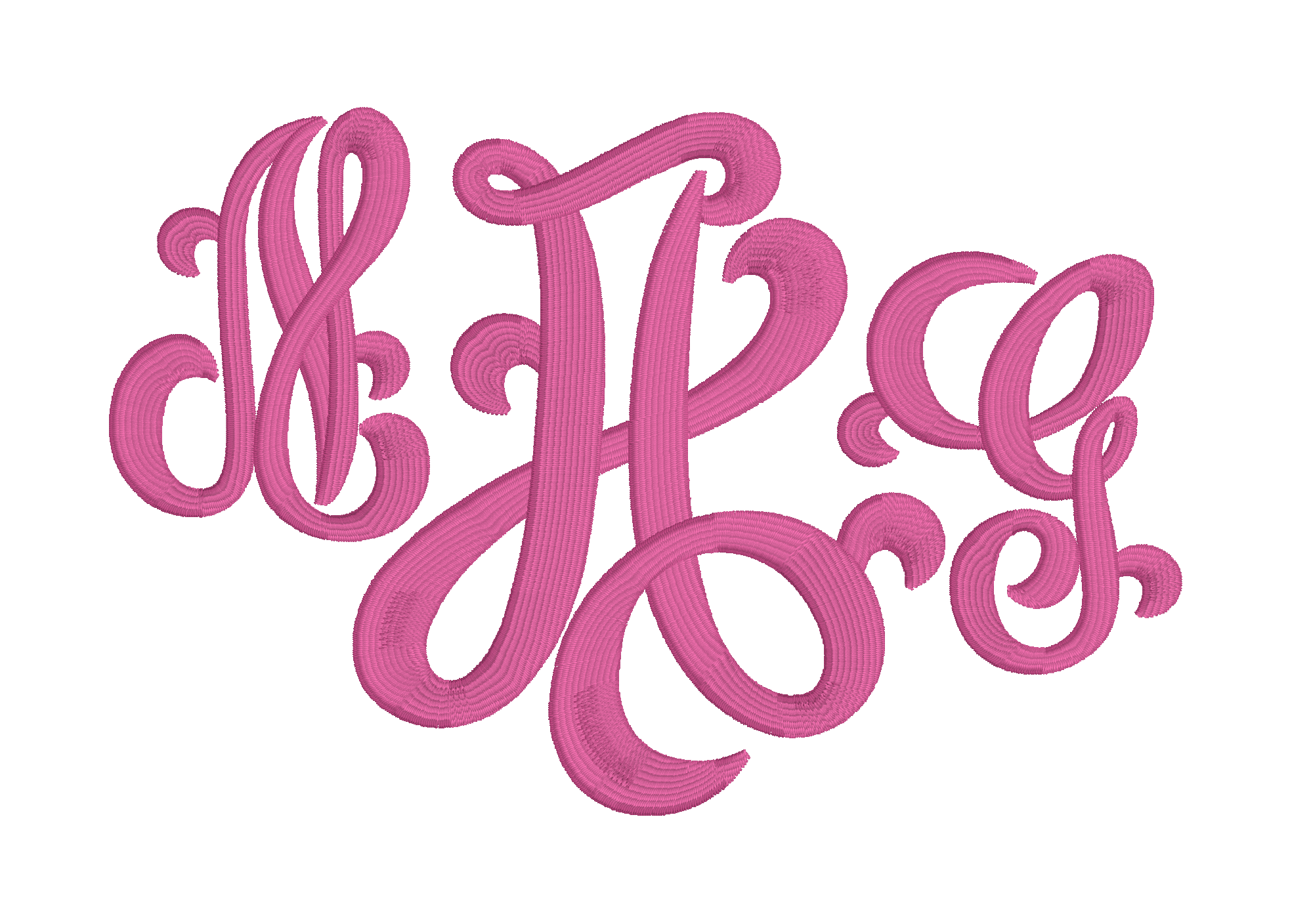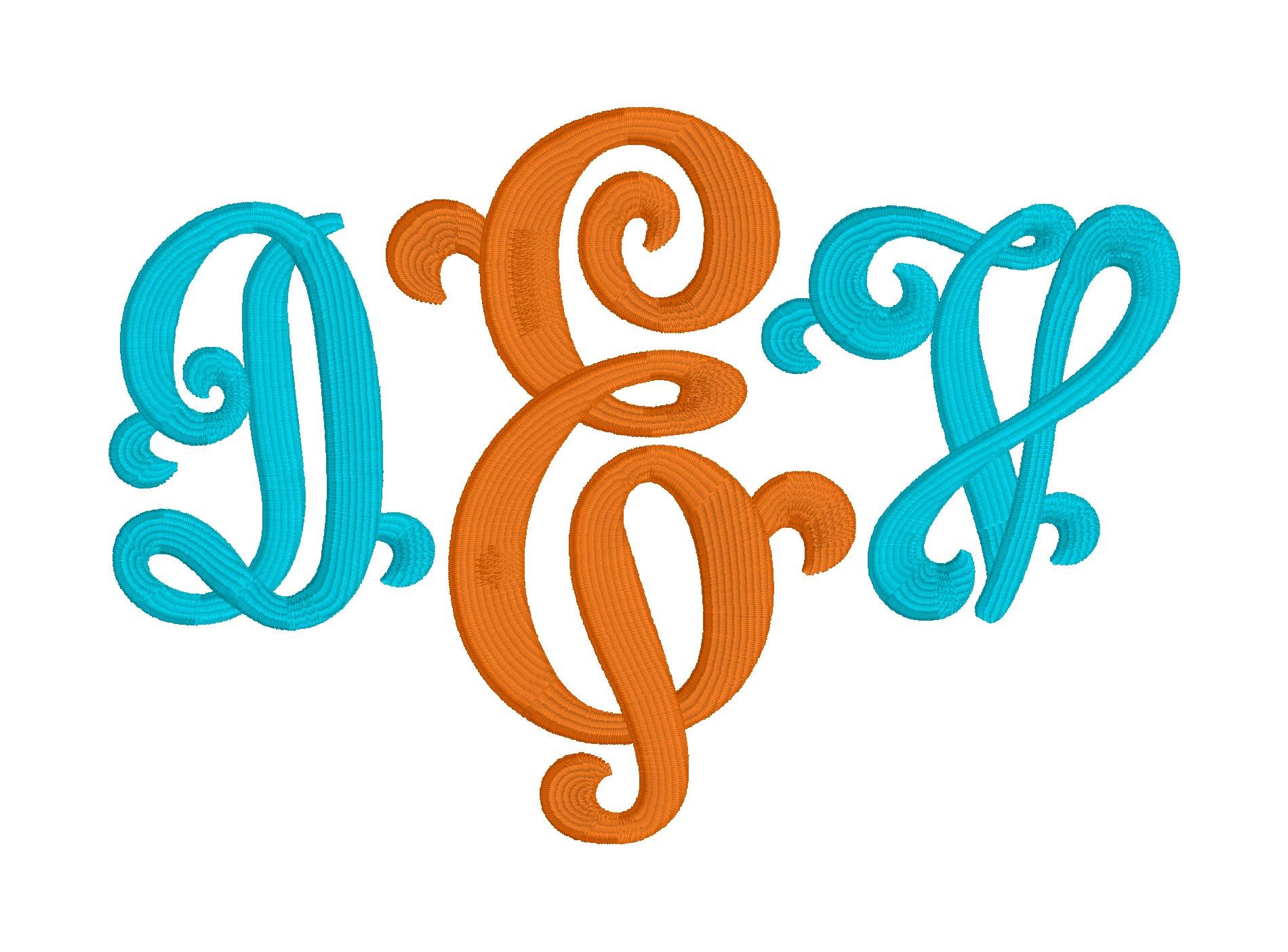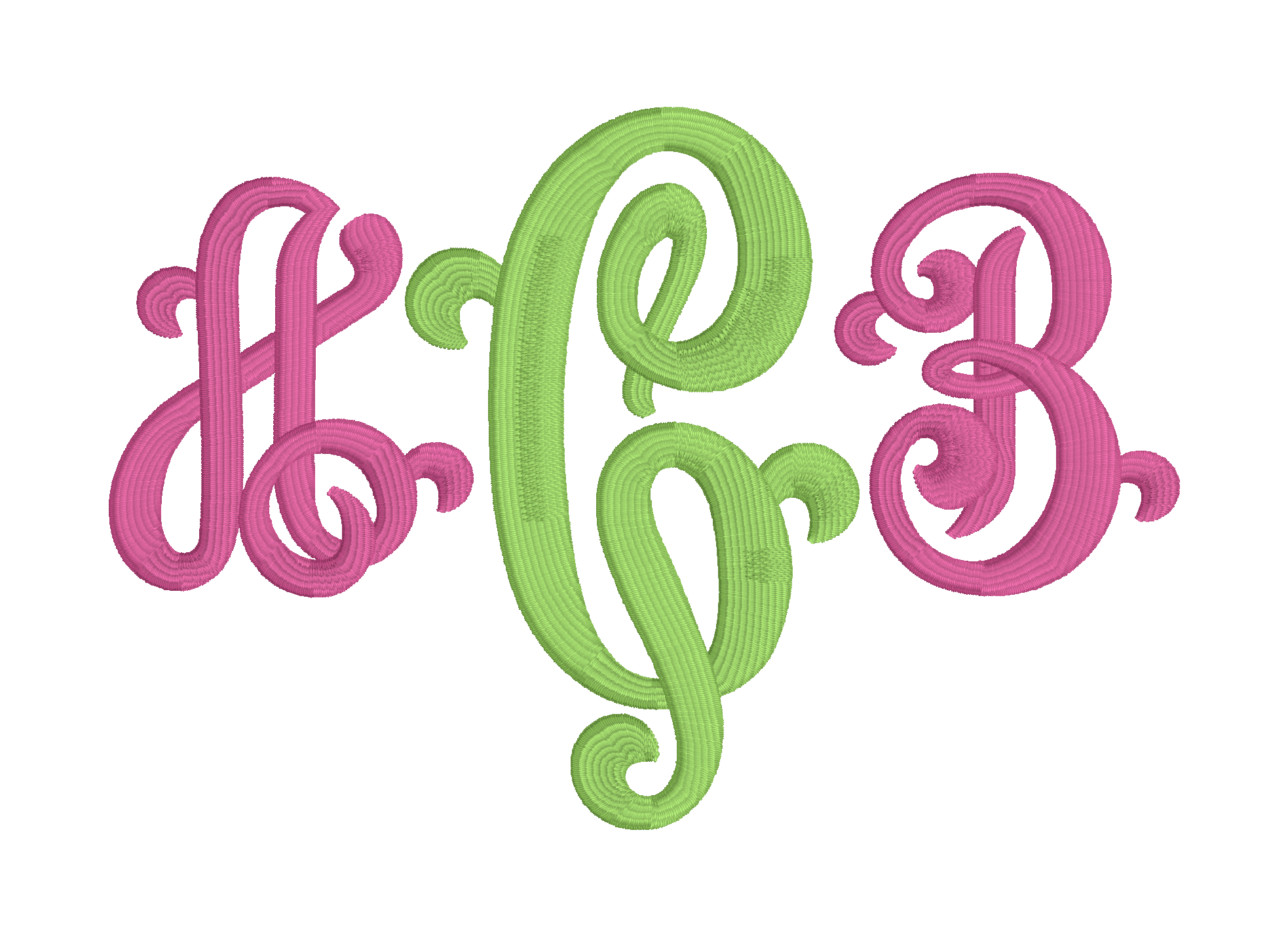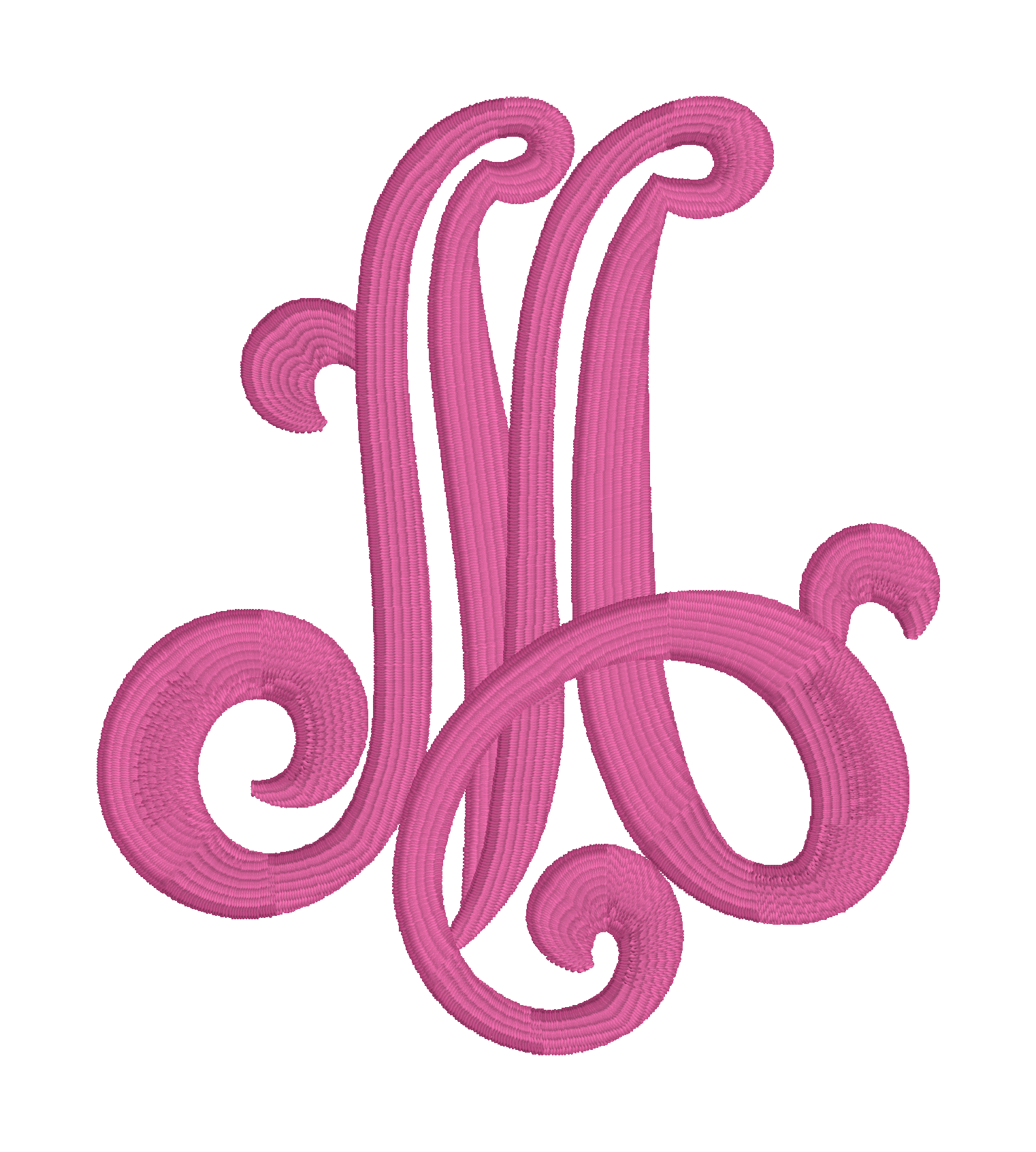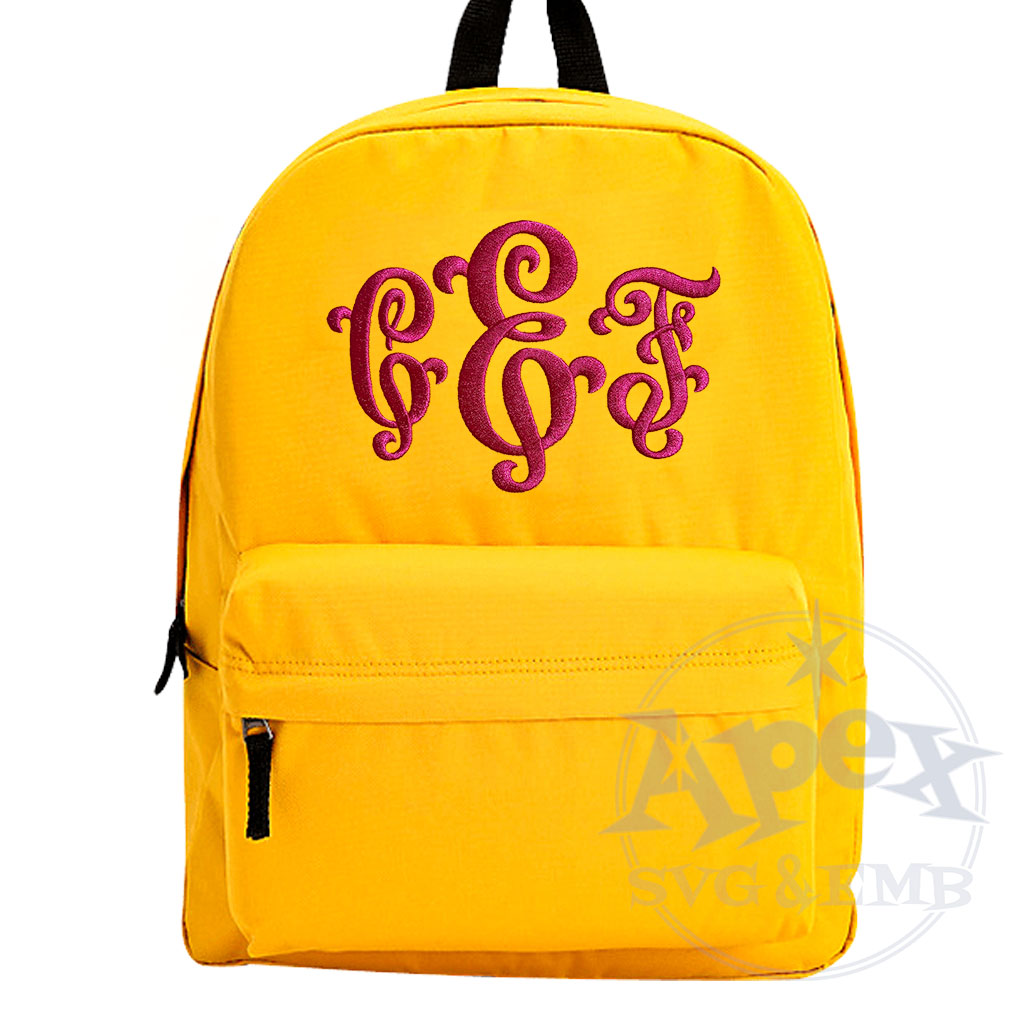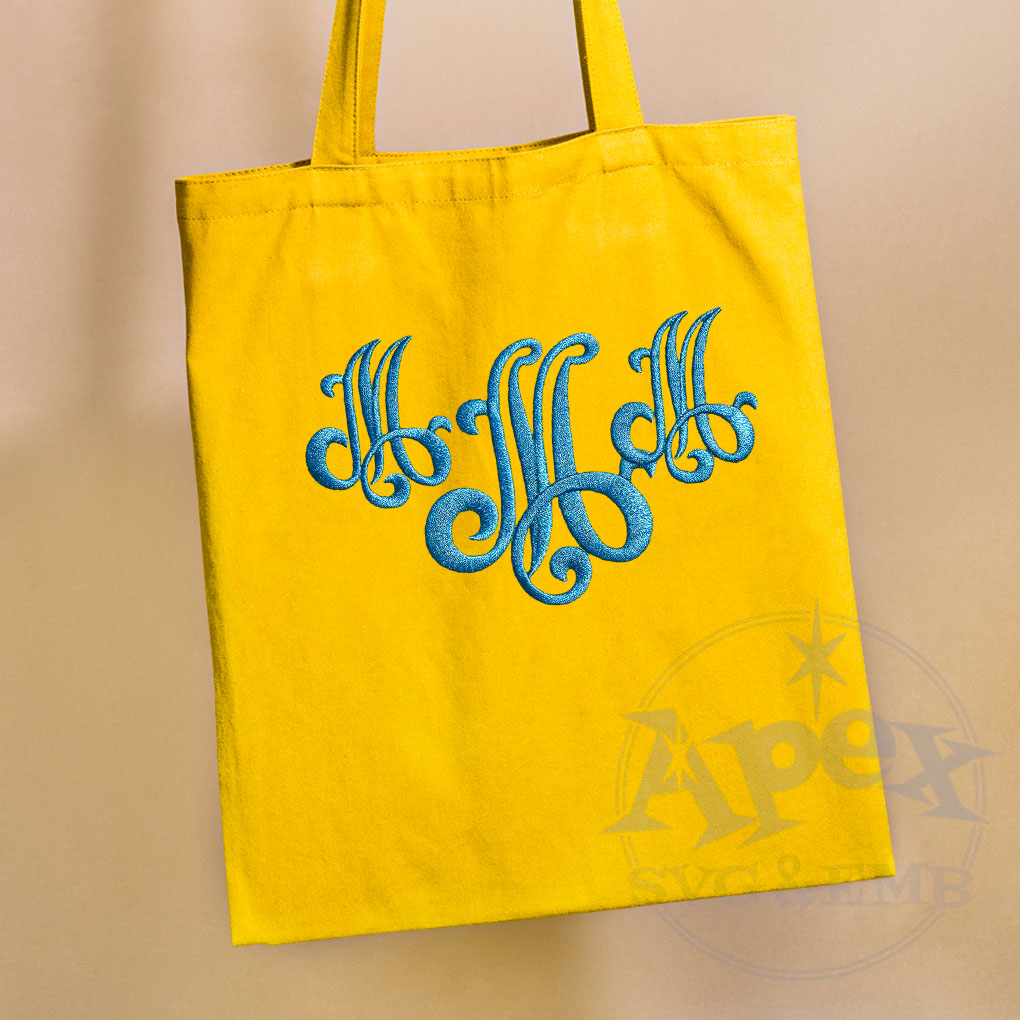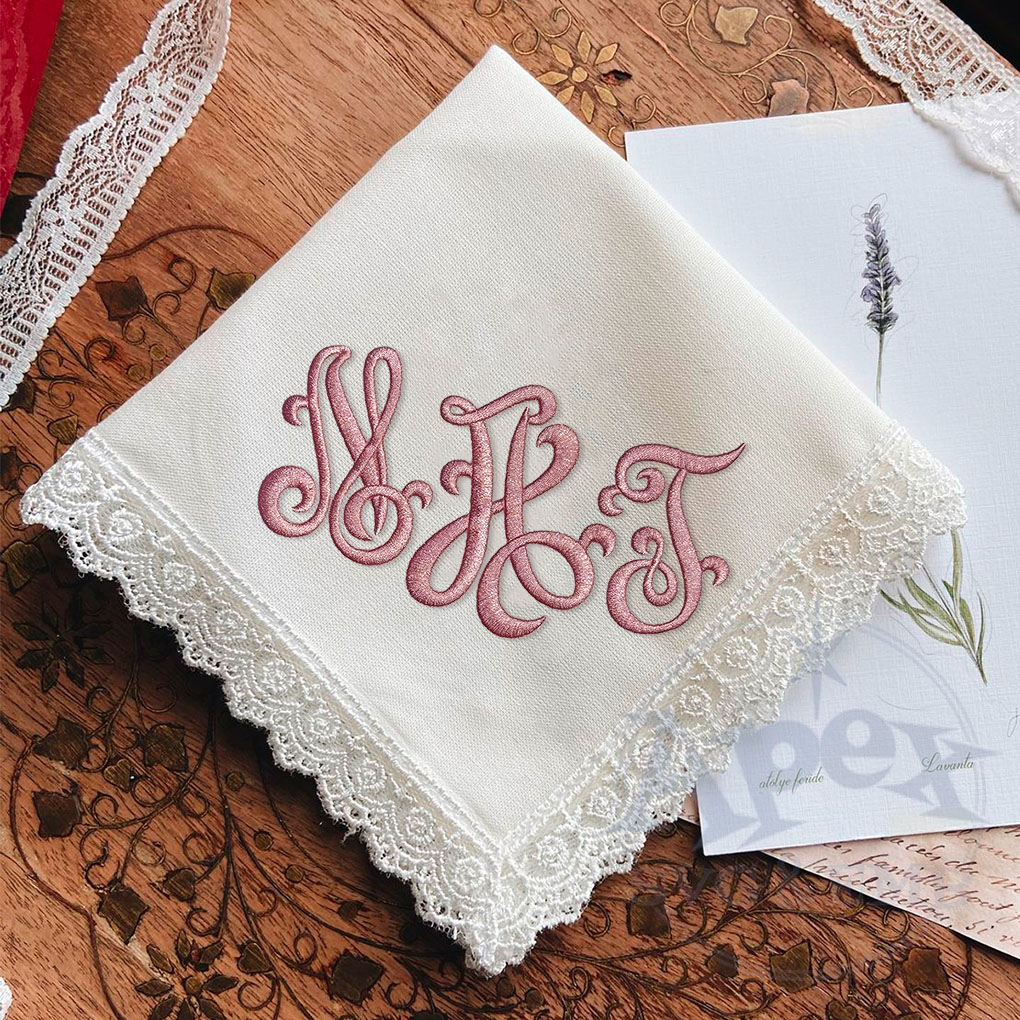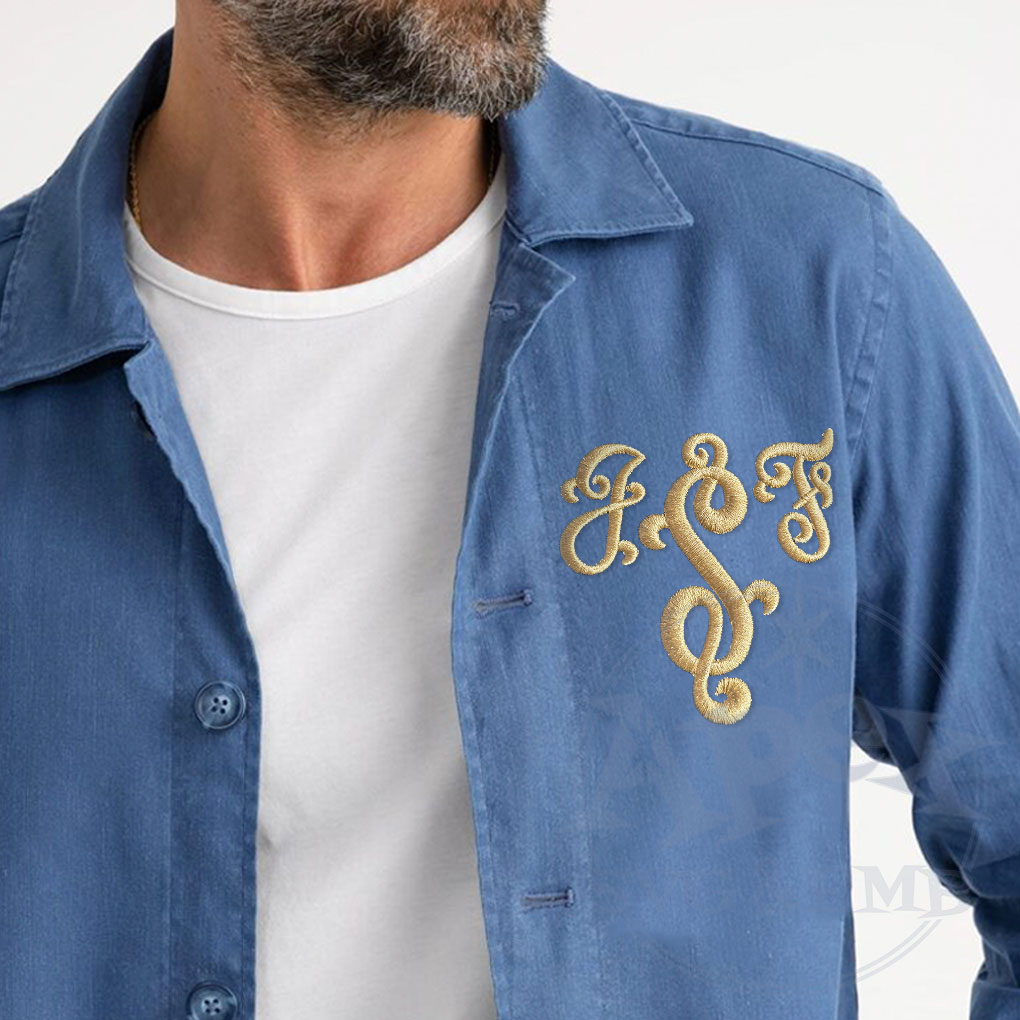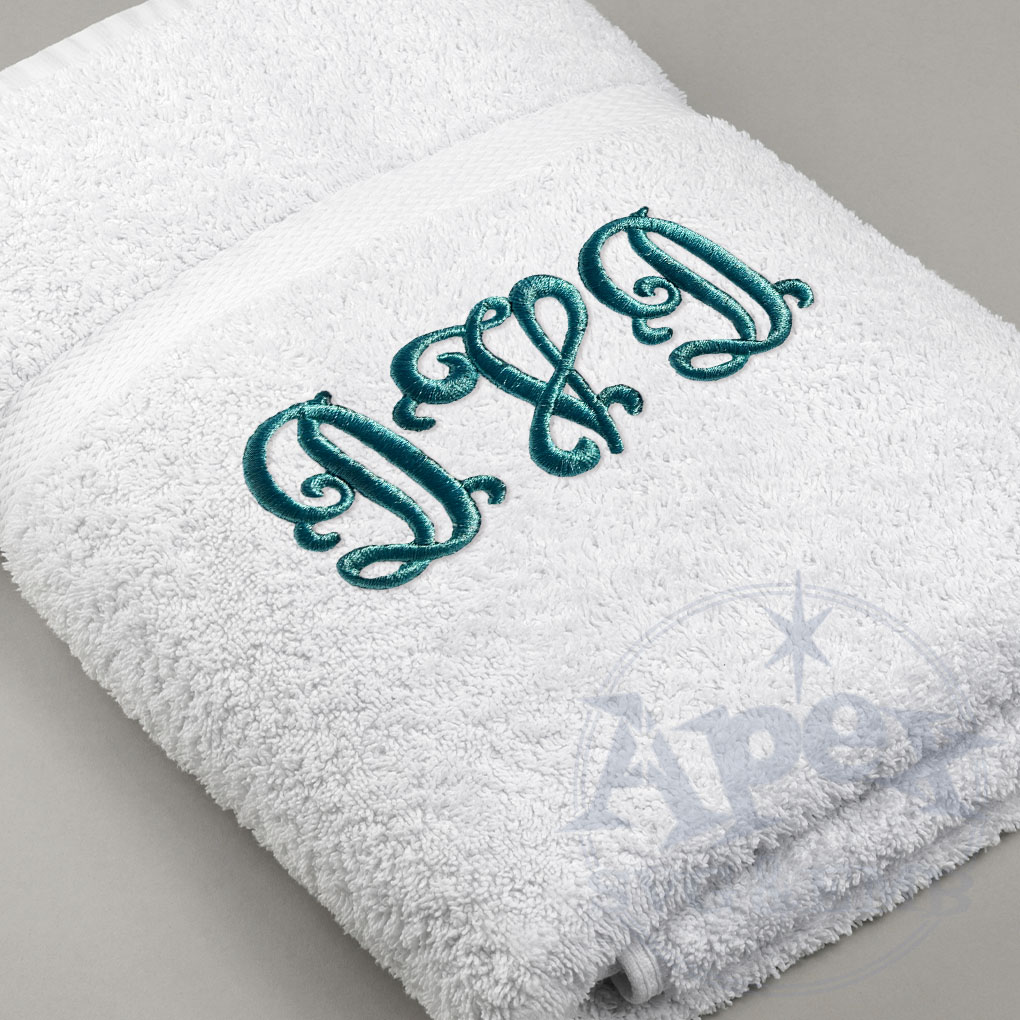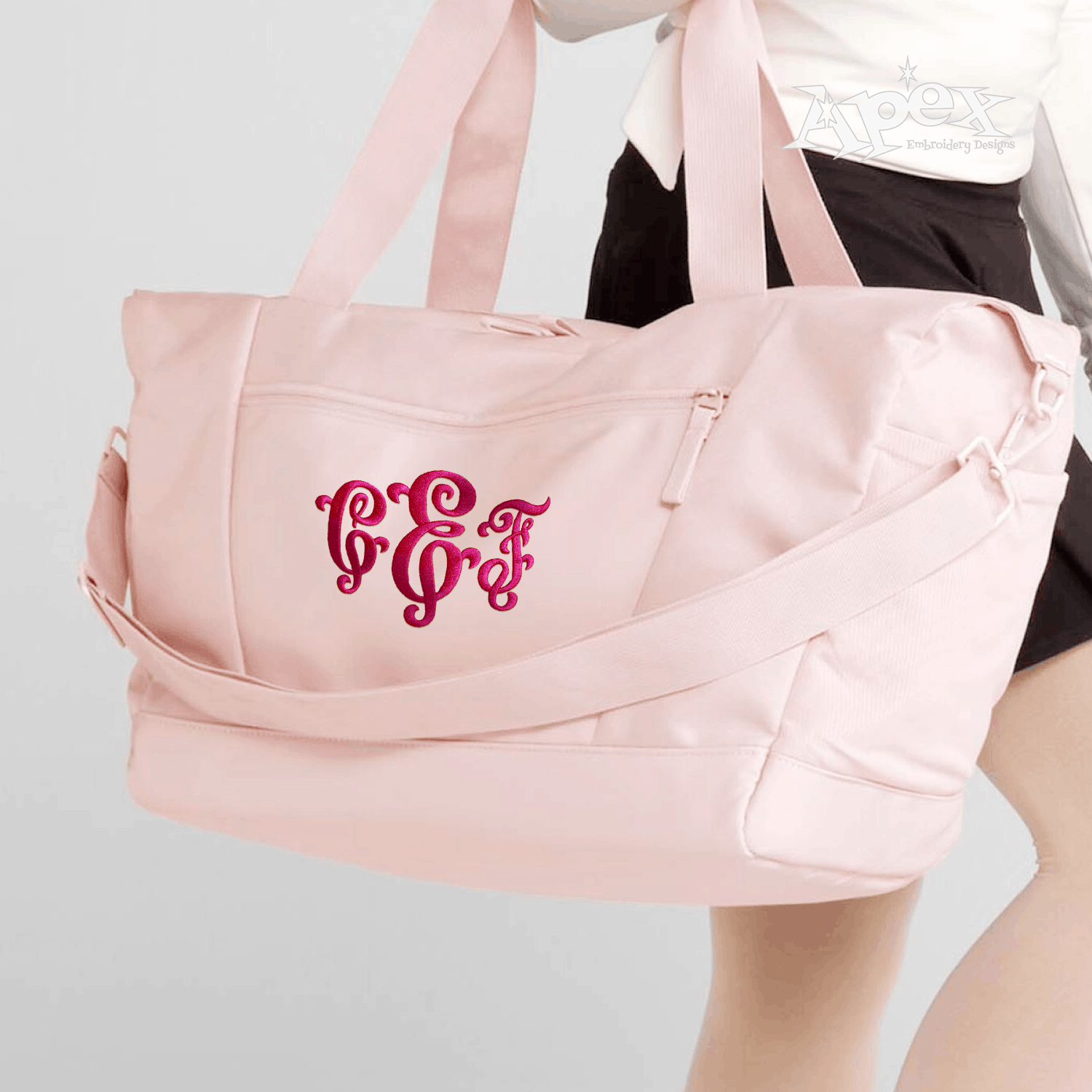
Vinoy Satin Monogram Embroidery Font
Create French style personalized gifts and home décor with Vinoy. This an old world Vinoy Satin Monogram Embroidery Font. Vinoy Satin Monogram Featuring a classic with Europe Regal stylish 3-color embroidery monogram set is perfect for customizing hats, linens, towels, baby gifts, tote bags, and more.